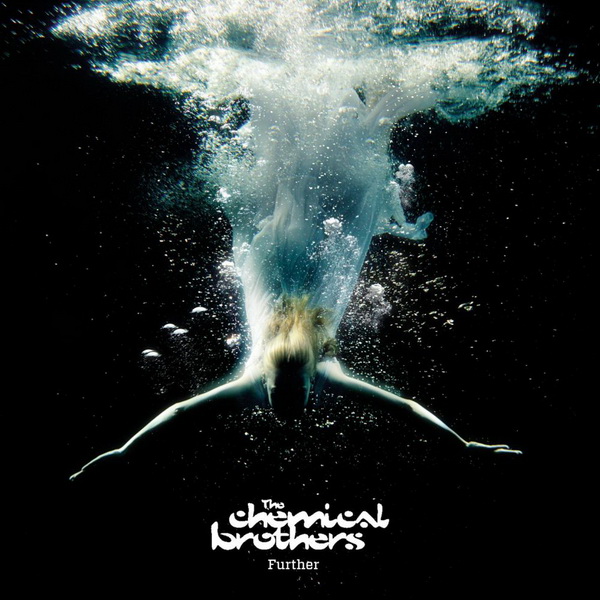
The Chemical Brothers Font
ElectronicThe Chemical Brothers are a British electronic music duo composed of Tom Rowlands and Ed Simons. They have been a prominent force in the dance music scene since the 1990s.
The Chemical Brothers' logo, as displayed on the cover of their album "Further" from 2010, consists solely of their logotype. The lettering resembles a font called Dust Mites by Cheops, which is available for free download from the Fonts Used Section.